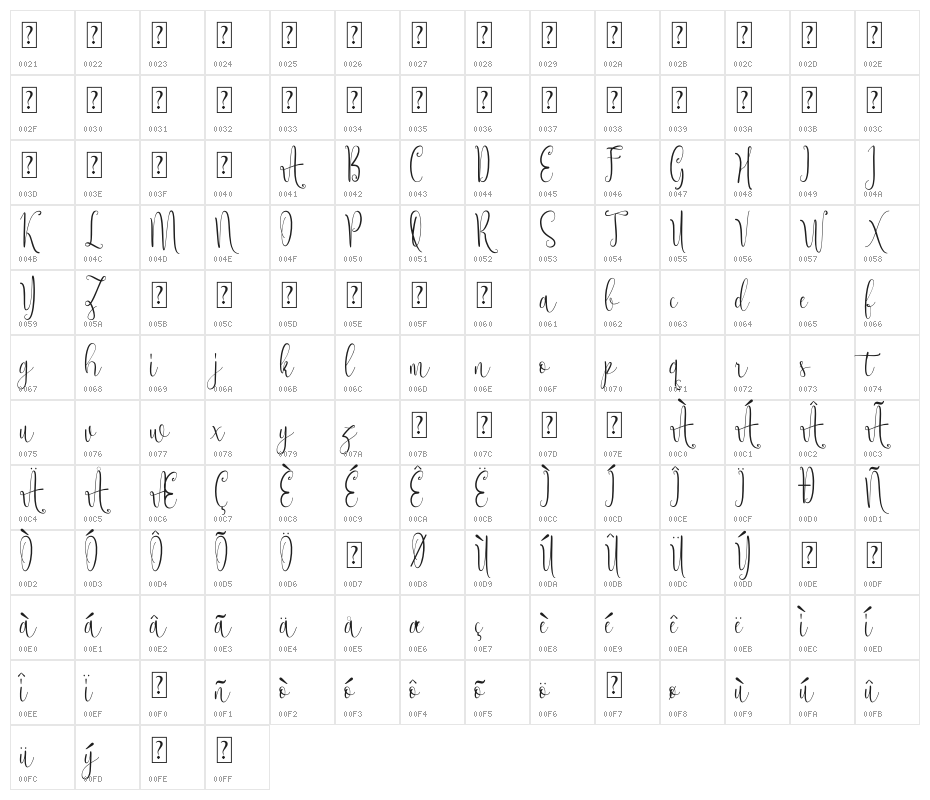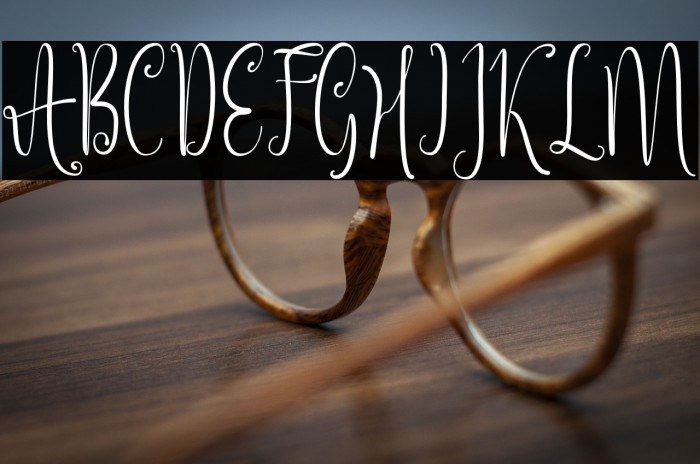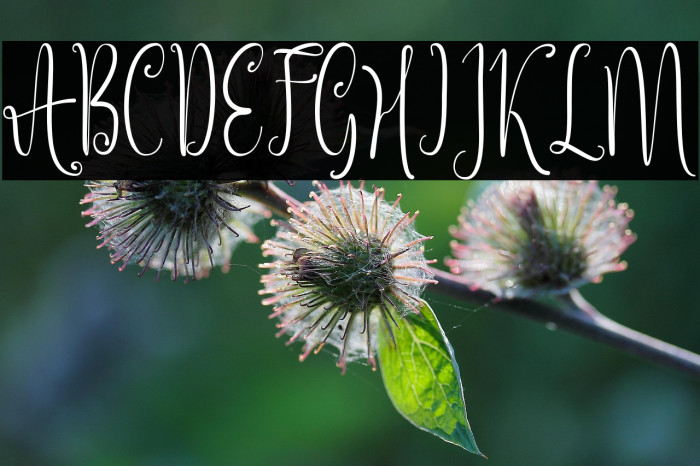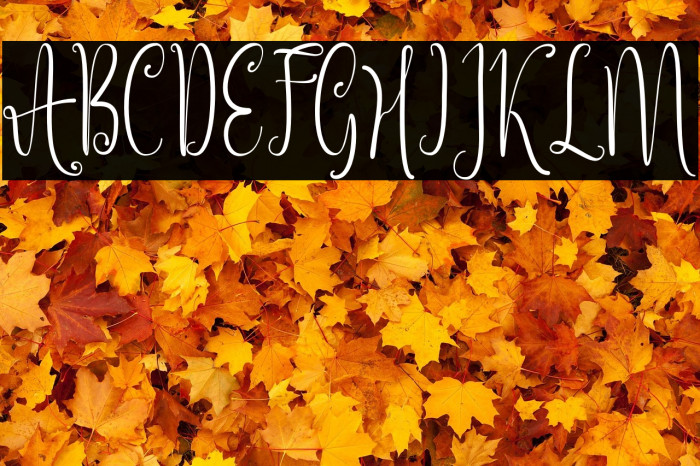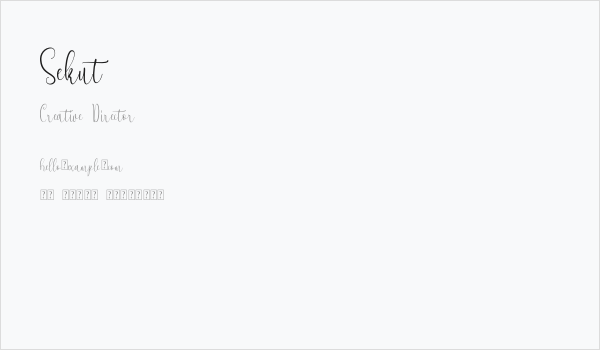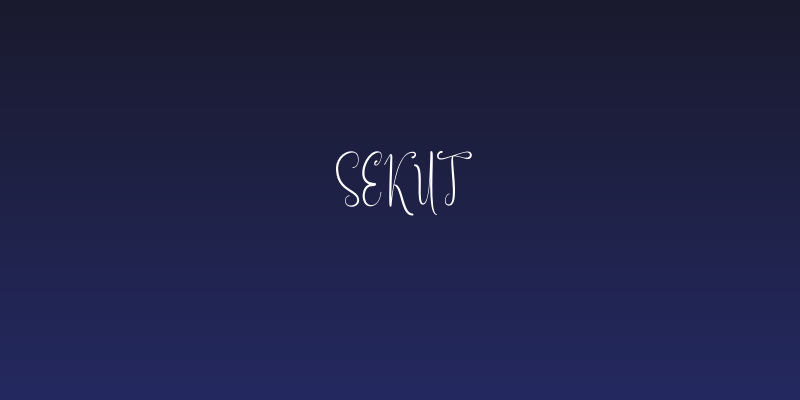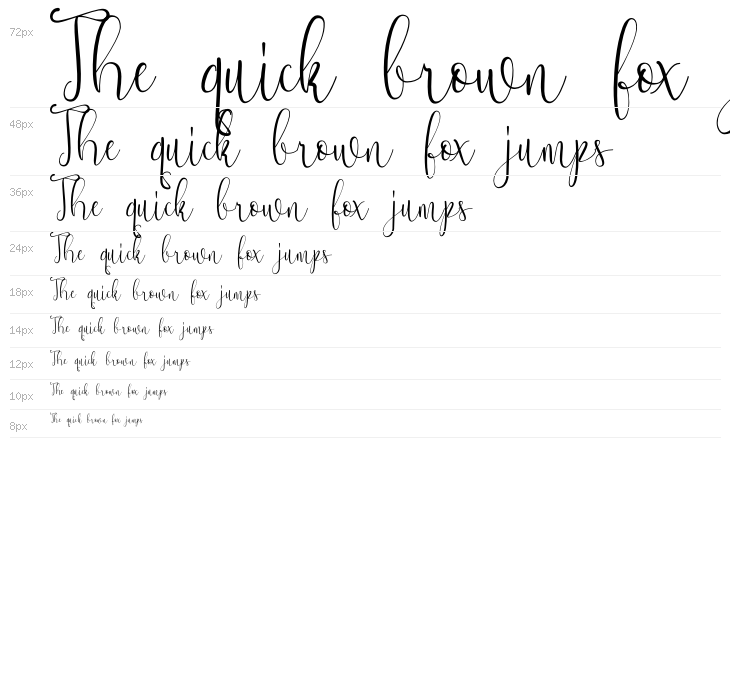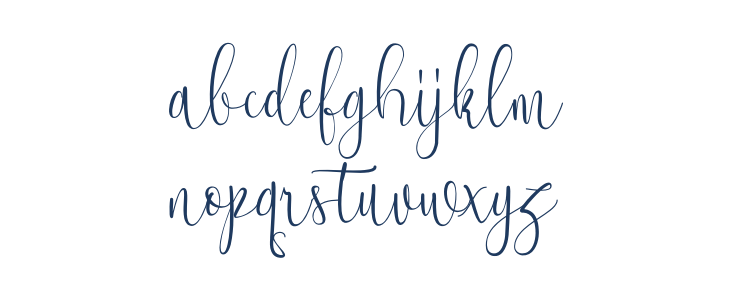
Sekut Font
Sekut Description
This font features a whimsical and flowing script style, characterized by its elegant and elongated letterforms. The uppercase letters are tall and slender, with playful loops and swashes that add a sense of movement and grace. The lowercase letters maintain a consistent style, with smooth curves and a slightly informal touch. The font exudes a sense of creativity and charm, making it ideal for projects that require a personal and artistic flair. The overall appearance is both sophisticated and approachable, suitable for a variety of design applications.
| Proposed Projects | Ideal for wedding invitations, greeting cards, branding, and creative projects that require a personal touch. |